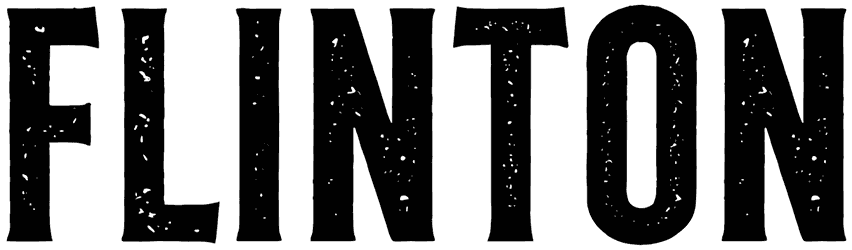
RTCO Flinton Font
The vintage RTCO Flinton font helps convey the design’s old-style vibe. It’s a fancy, grunge font that can be used to make artwork for posters, cards, websites, branding, logos, etc., and it makes up for the lack of lowe…
The vintage RTCO Flinton font helps convey the design’s old-style vibe. It’s a fancy, grunge font that can be used to make artwork for posters, cards, websites, branding, logos, etc., and it makes up for the lack of lowercase letters in unique ways.